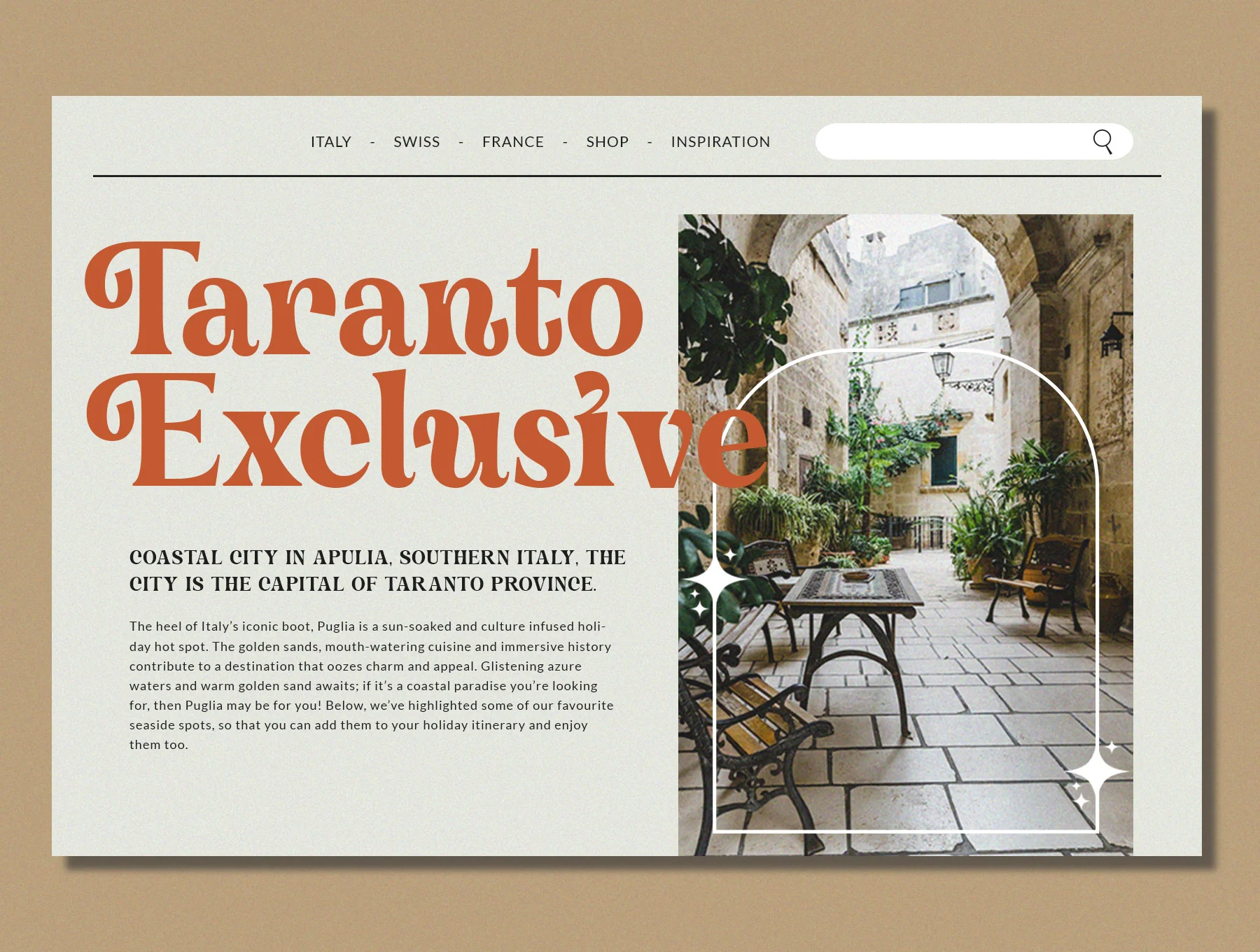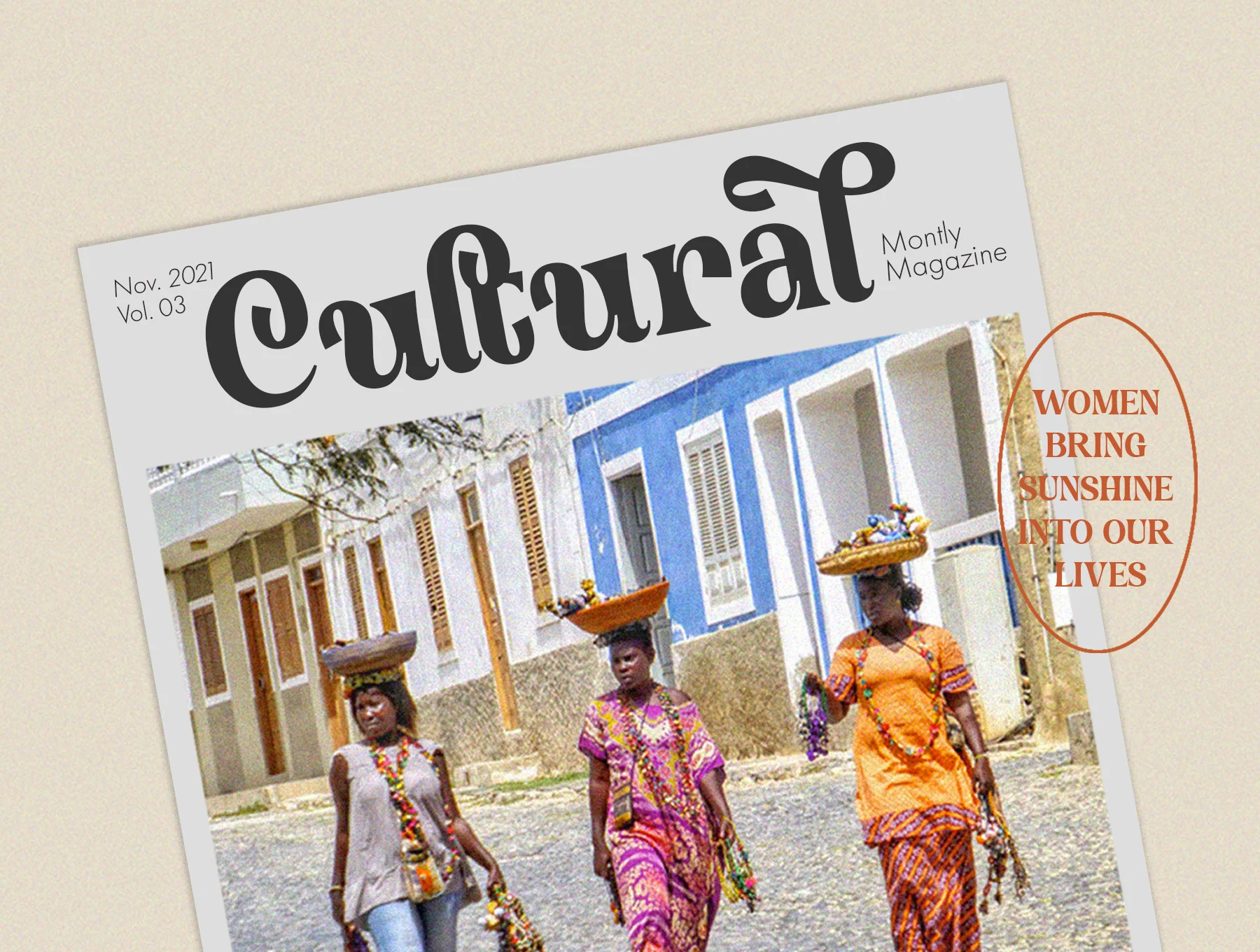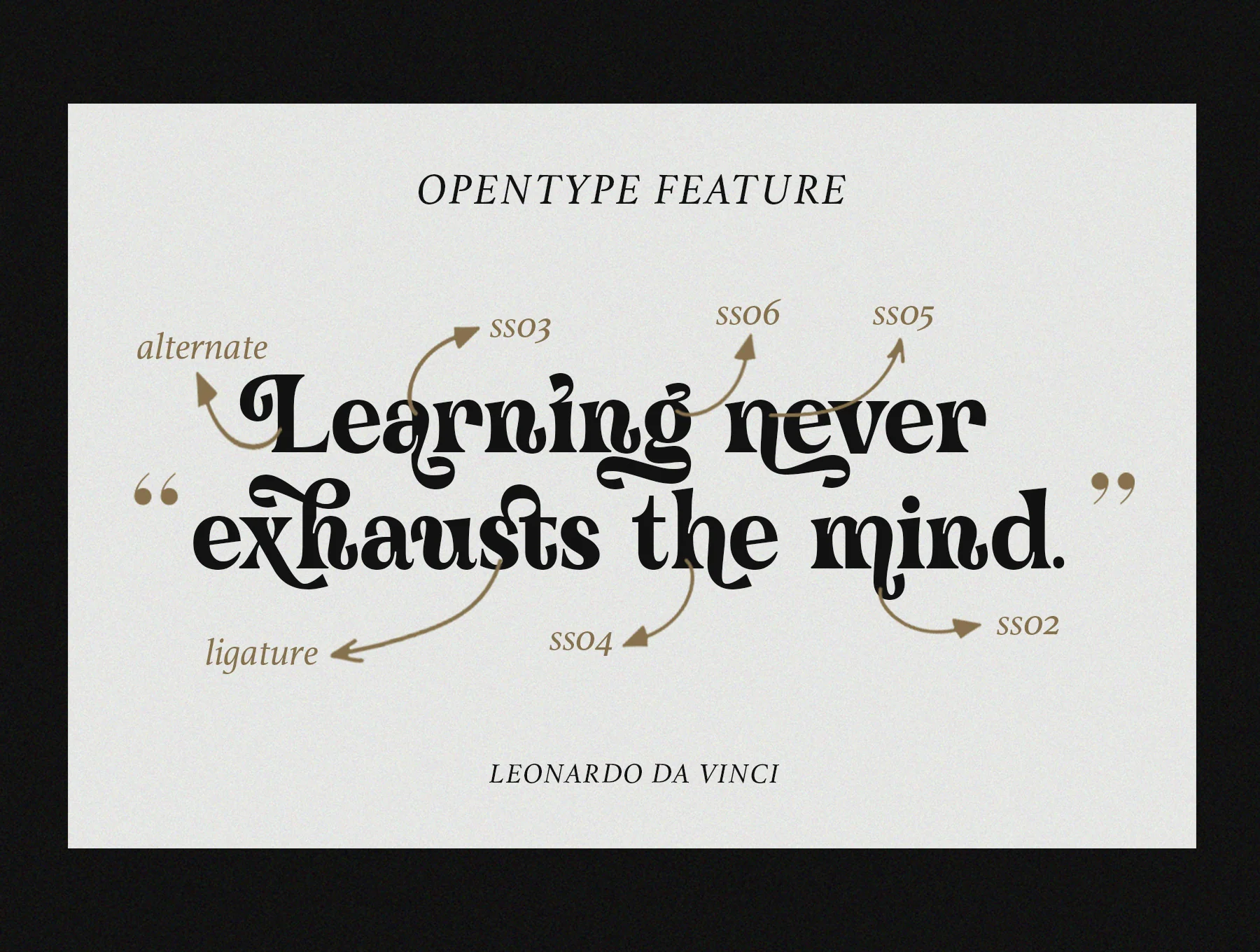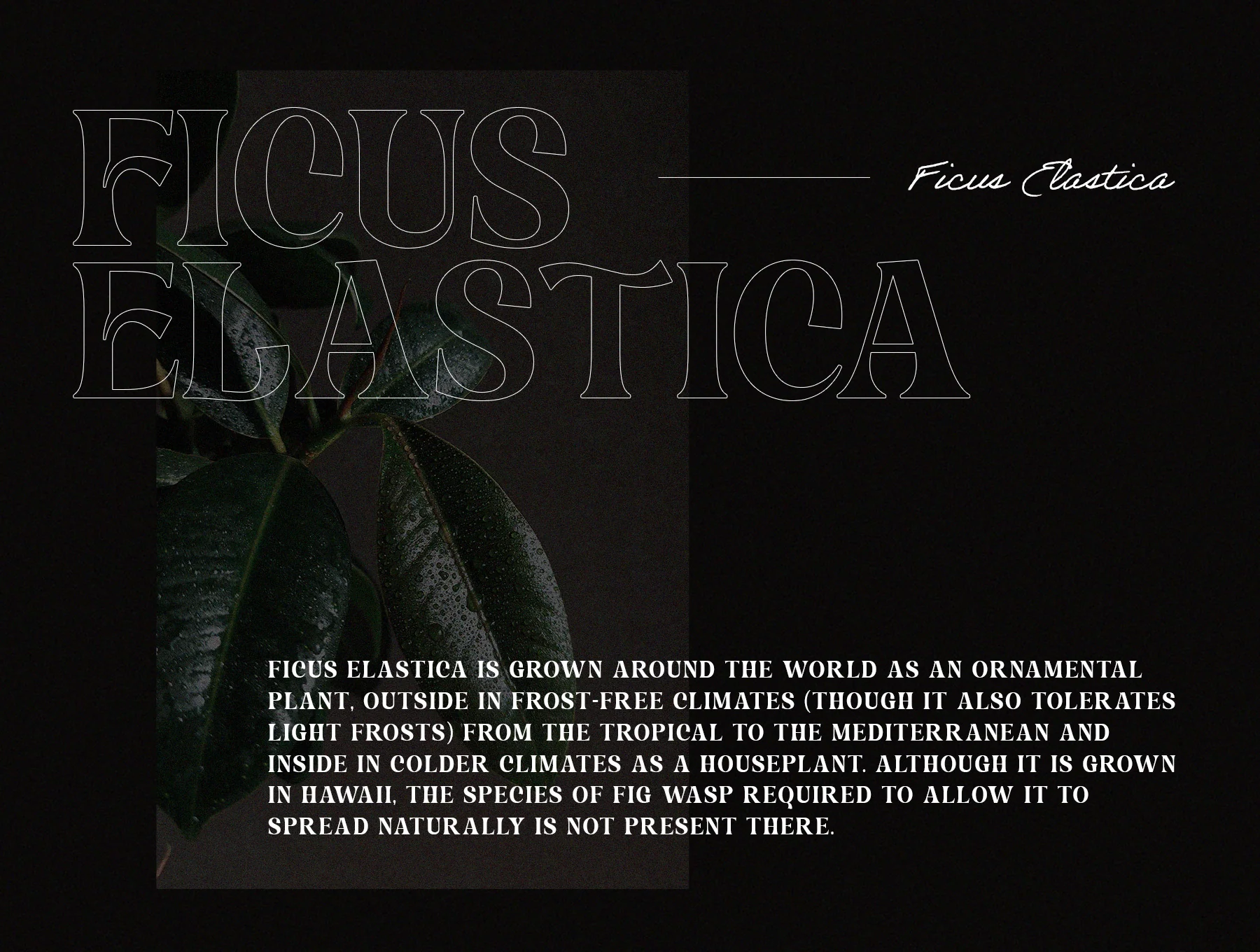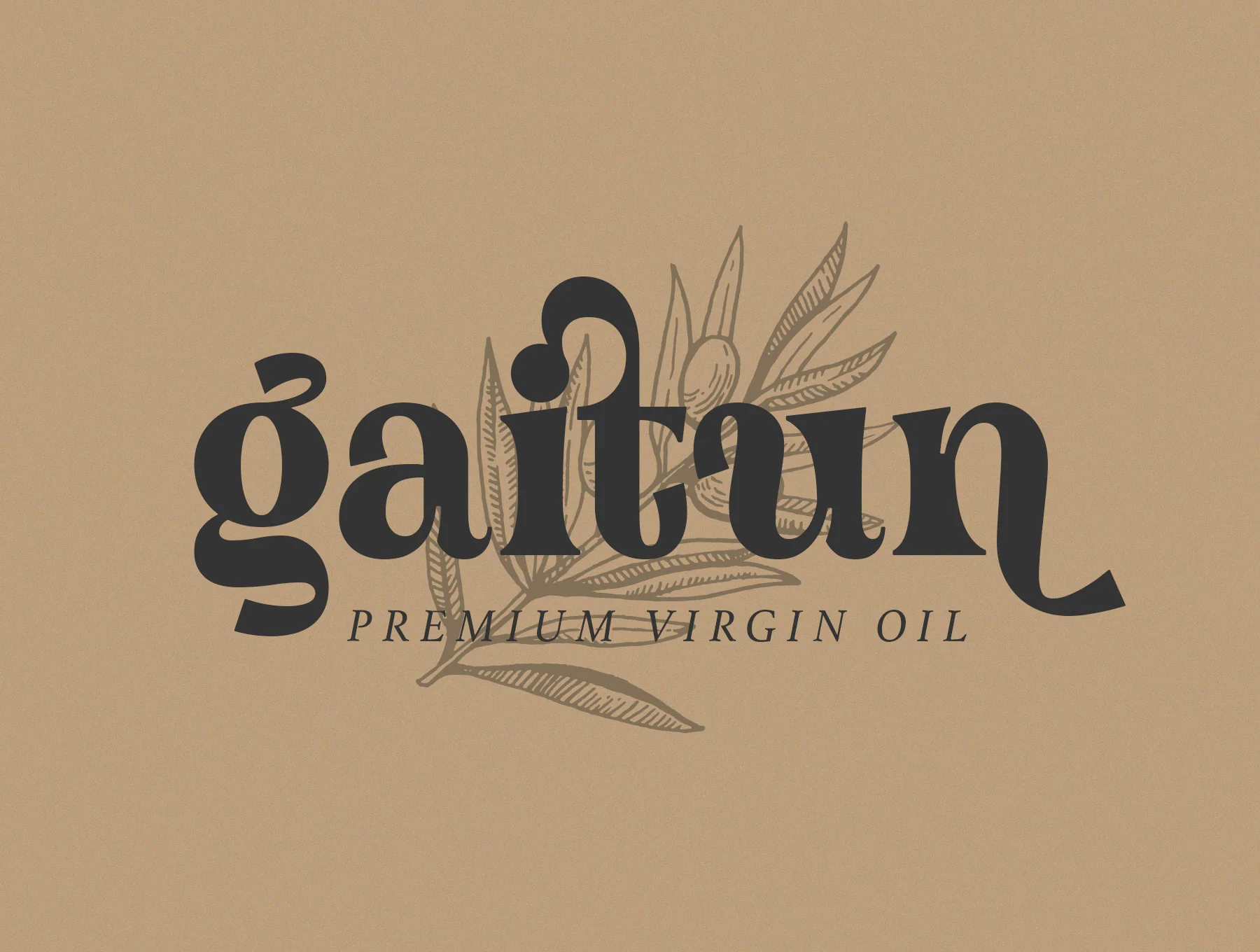
Trinstam - Modern Font
Stylish typeface with a subtle classic flair
Caps, small letters, numbers, and punctuation
Alternate styles plus stylistic sets
Support for multiple languages
Trinstam is a refined display serif that brings classic character to modern branding. Its bold, polished style suits editorials, logos, apparel labels, packaging, and magazine titles. With a distinctive retro psychedelic feel, it adds an elegant standout touch to creative work. Includes Trinstam. Alternates are available through Glyphs in Photoshop or Illustrator.